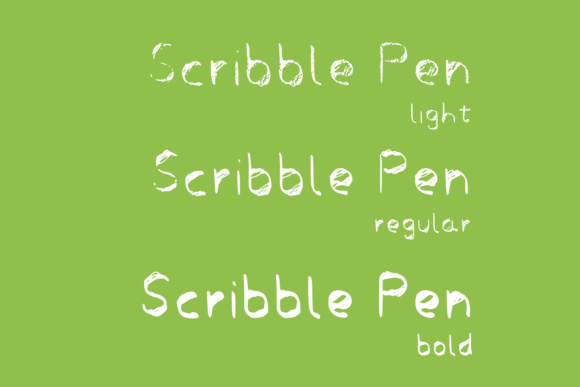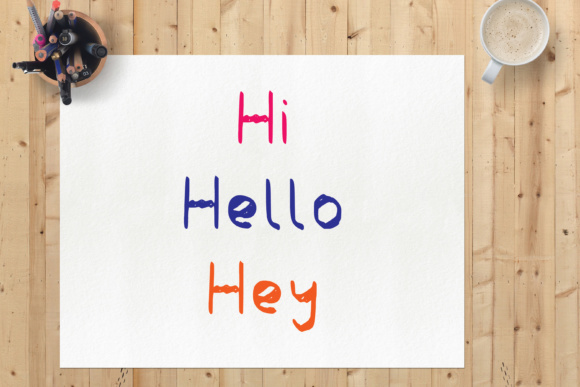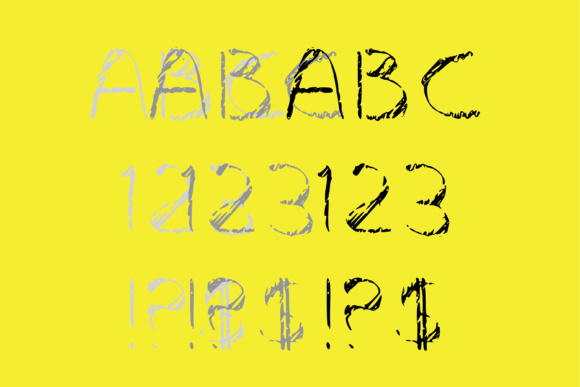
Scribbler Pen Font
About Scribbler Pen Font
Our hand drawn, casual and fun looking comic style font is messy but ledge able enough to read as lowercase body copy! Funky scribble pen mimics those notes you might take while on the phone or while day dreaming. Packed full of character it comes in four weights, with numbers, upper and lower with some symbols and punctuation. We think this is one of our coolest fonts to date, messy, scribbles for kids and adults alike
3 weights includes upper and lower a-z, numbers and some symbols and punctuation.